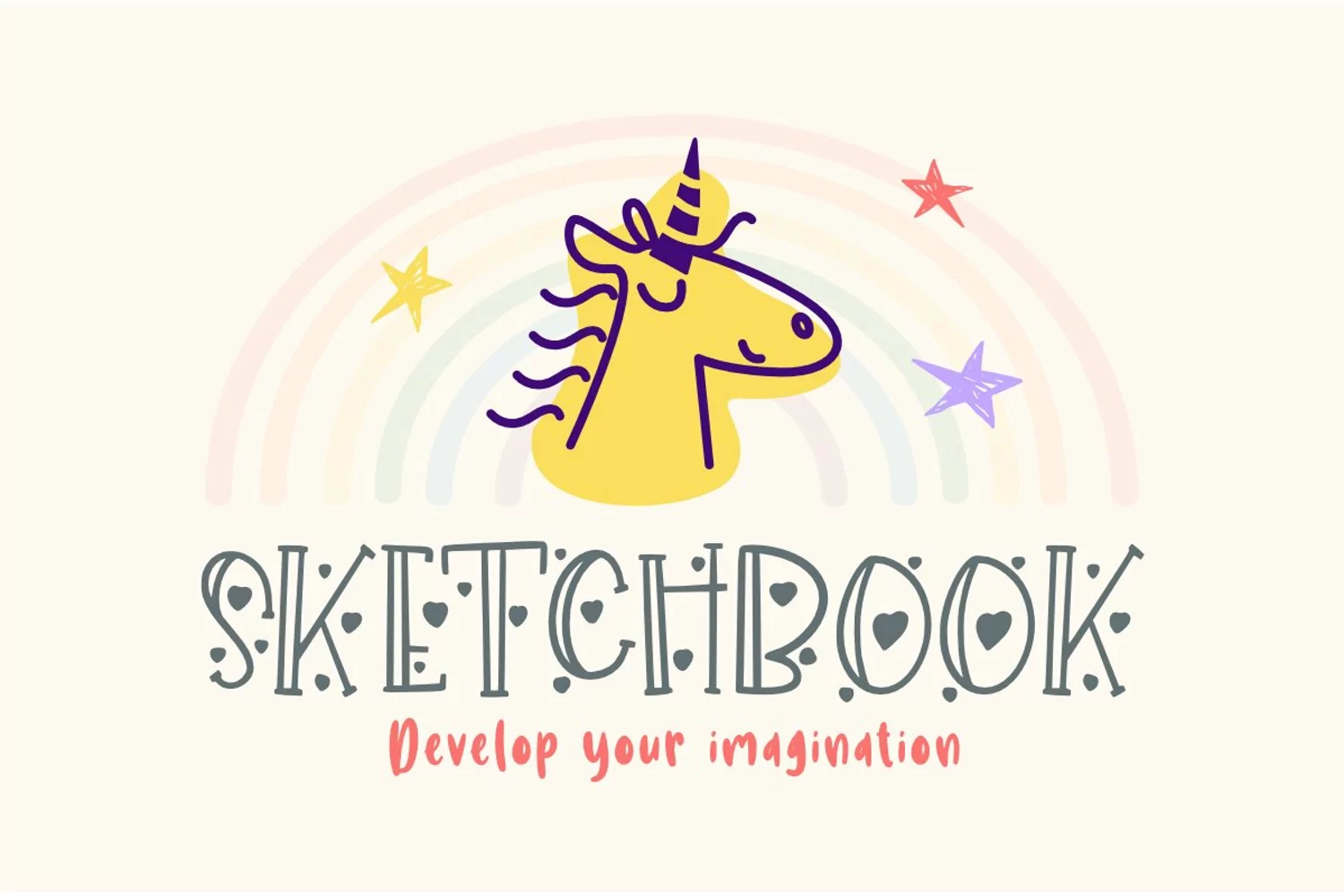
Wheat Lovers- Doodle Font
Introducing " Wheat Lovers "
Wheat Lovers Is a Handwritten cute font withLove Doodle font style
You Can Mix And Match for Your Awesome Project
This fonts is ideal for crafting, branding and decorate your any project. This fonts are perfect for wedding invitation or your blog. Also with their help, you can create a logo or beautiful frame for your home. Or just use for your business, book covers, stationery, marketing, magazines and more.